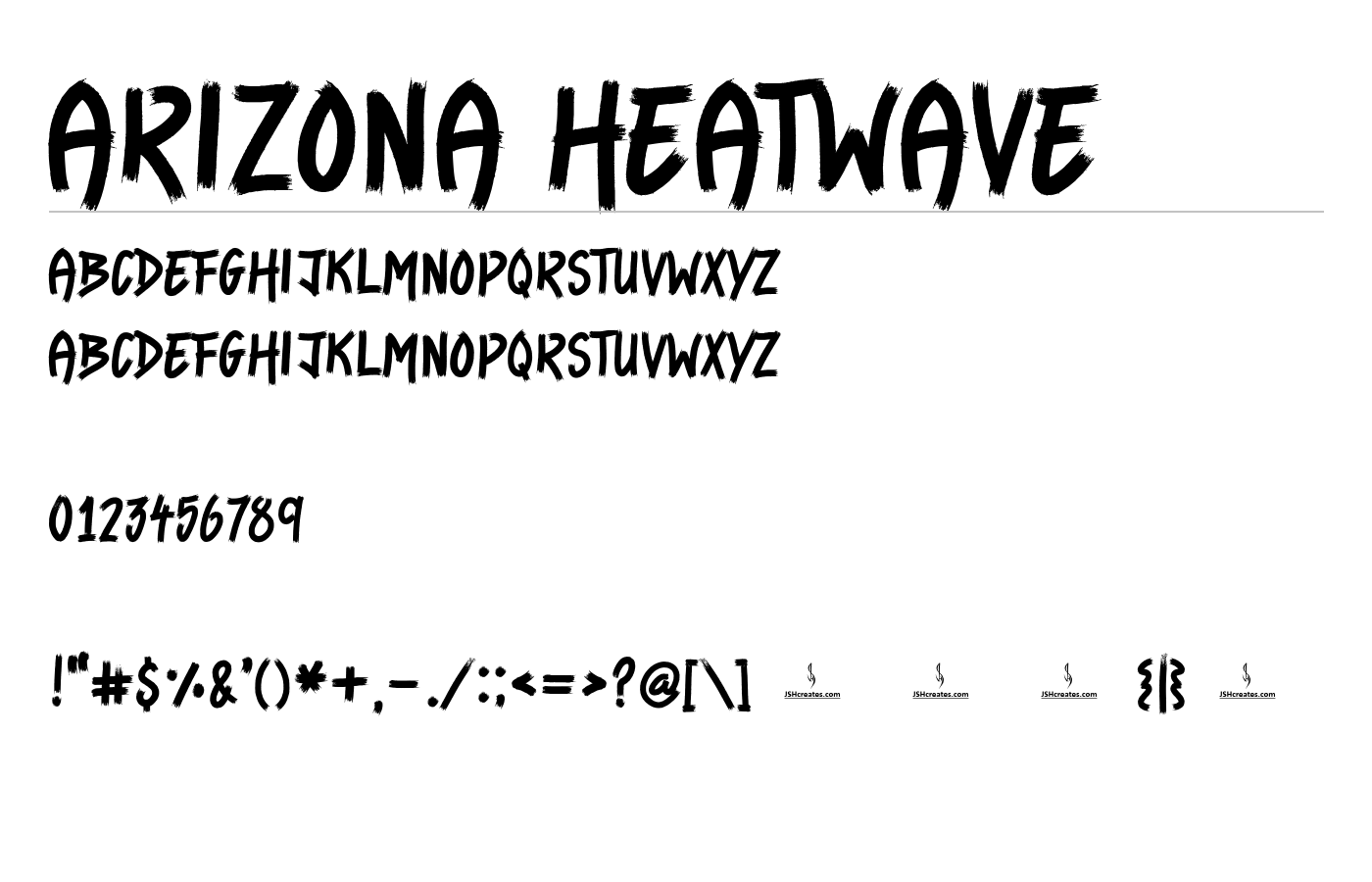
Arizona Heatwave is a bold, hand-drawn display font with a rough, brushstroke style that gives it an energetic and dynamic feel. Its tall, slightly condensed letterforms paired with textured edges make it perfect for eye-catching headlines, posters, and branding that want to convey a spirited, adventurous, or urban vibe. This font works best in creative projects that benefit from a strong, informal, and artistic expression.
Arizona Heatwave Font
About Arizona Heatwave Font
| Font family | Arizona Heatwave Font |
| Designer | Jonathan S. Harris |